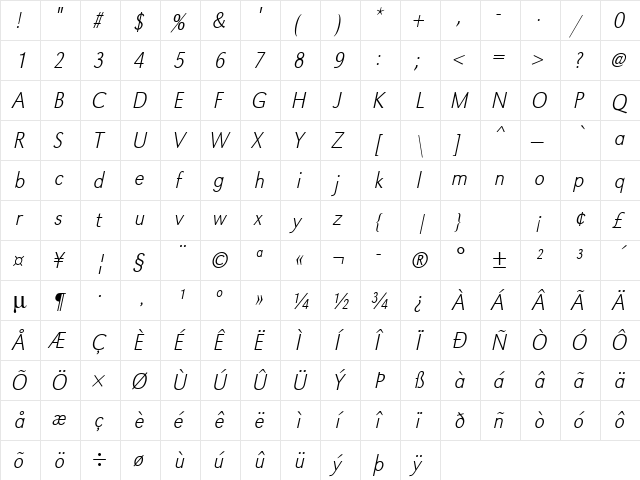
URWGroteskTExtLigExtNar Oblique
Design Context for URWGroteskTExtLigExtNar Typeface
URWGroteskTExtLigExtNar has the quiet confidence of well-executed sans-serif typography: versatile, unobtrusive, and dependable at any size. The slanted form adds forward momentum and visual energy.
Font Pairing: Works well alongside a characterful serif or display font that can carry the expressive load while URWGroteskTExtLigExtNar handles the functional copy.